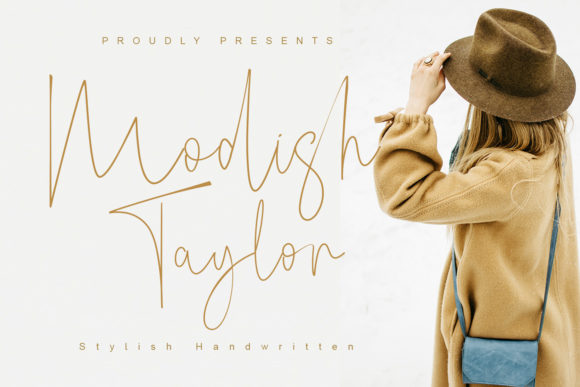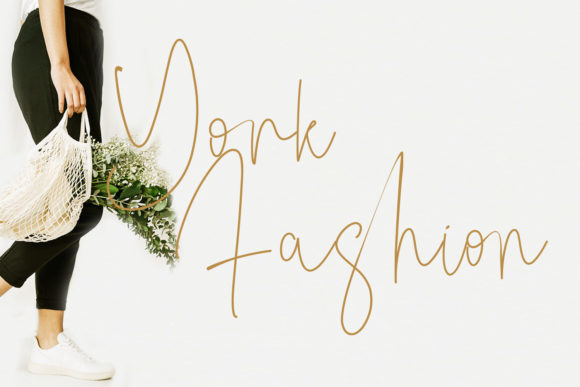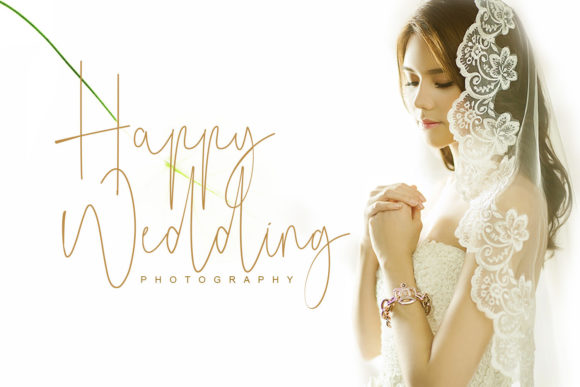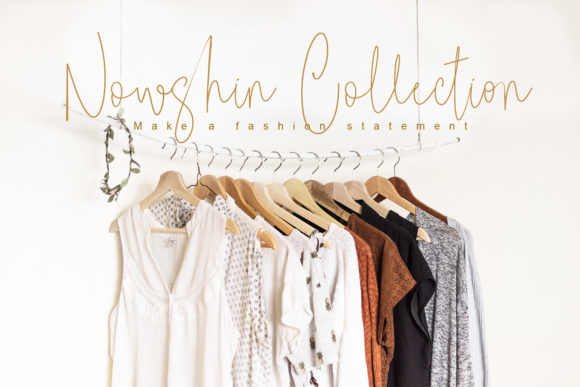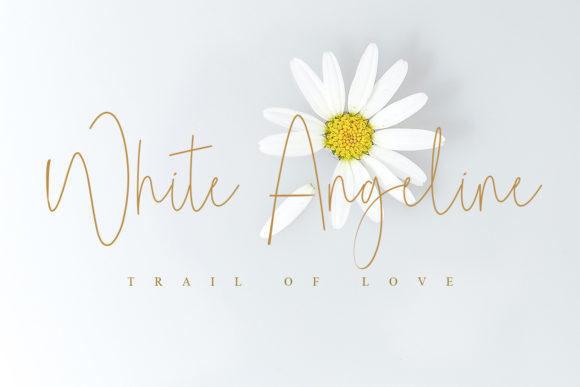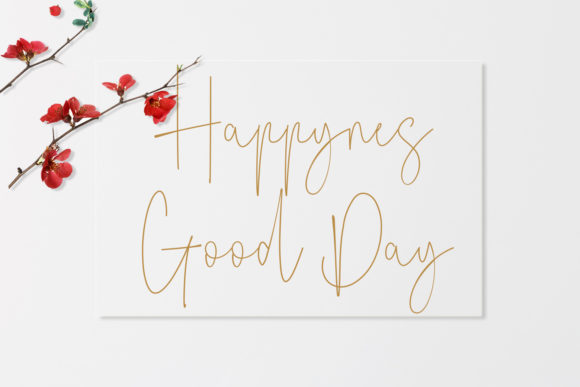
Modish Taylor Font
About Modish Taylor Font
Modish Taylor is a relaxed and delicate script font that exudes elegance and class. This font was particularly crafted for those who need a beautiful and refreshing look to their designs.